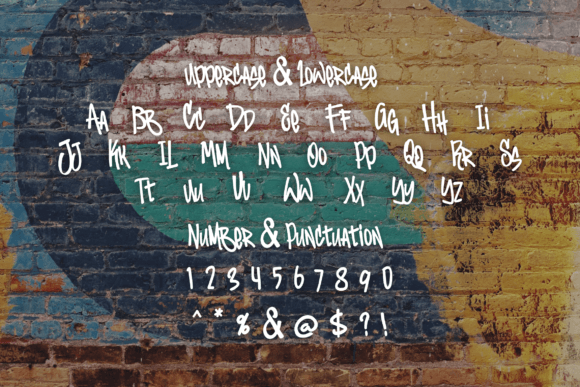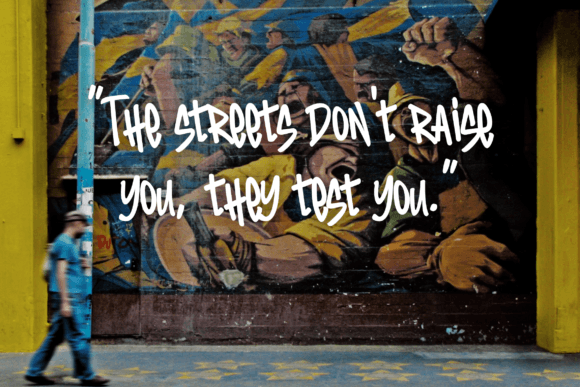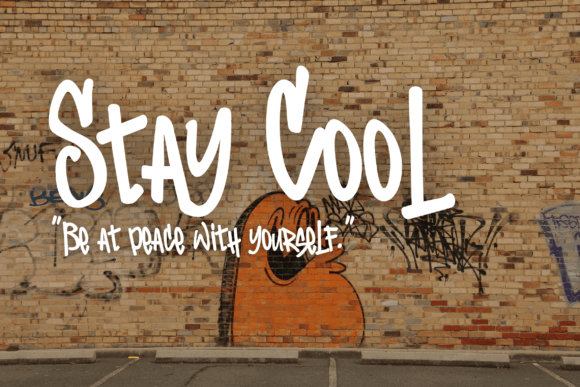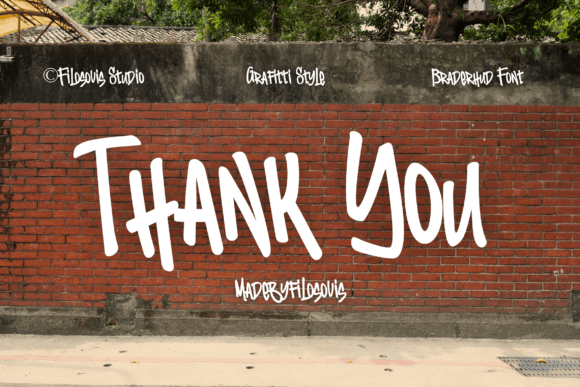
Unleash Your Creativity with Braderhud Font: The Ultimate Graffiti-Style Font
Are you tired of using the same old fonts for your designs? Look no further! Braderhud Font is here to revolutionize your creative projects with its playful, graffiti-style charm. This whimsical font is perfect for designers and crafters who want to add a touch of personality to their work. In this article, we’ll dive into the world of Braderhud Font and explore its unique features, uses, and benefits.
The Birth of Braderhud Font
Braderhud Font is a carefully crafted typeface that embodies the spirit of graffiti art. Its creator aimed to design a font that would bring a sense of playfulness and joy to designs, and we must say, they’ve succeeded. With its unique letterforms and quirky charm, Braderhud Font is sure to make your designs stand out from the crowd.
Key Features of Braderhud Font
So, what makes Braderhud Font so special? Here are some of its key features:
- Graffiti-style design: Braderhud Font boasts a bold, graffiti-inspired design that’s perfect for creating eye-catching headlines and titles.
- Whimsical letterforms: Each letter in Braderhud Font has its own unique personality, making it perfect for adding a touch of whimsy to your designs.
- Playful vibe: This font exudes a sense of playfulness and fun, making it ideal for designs that require a youthful and energetic feel.
- Unique charm: Braderhud Font has a certain charm that’s hard to find in other fonts. Its quirky design elements make it perfect for designers who want to add a personal touch to their work.
Uses of Braderhud Font
Braderhud Font is a versatile typeface that can be used in a variety of design projects. Here are some ideas to get you started:
- Eye-catching headlines: Use Braderhud Font to create bold, attention-grabbing headlines that will make your designs stand out.
- Vibrant posters: Add a playful touch to your posters with Braderhud Font. Its graffiti-style design is perfect for creating eye-catching posters that will grab people’s attention.
- Playful branding projects: Infuse your brand with personality using Braderhud Font. This font is perfect for creating playful, youthful branding that will appeal to a younger audience.
- Social media graphics: Use Braderhud Font to create engaging social media graphics that will make your followers smile.
Benefits of Using Braderhud Font
So, why should you choose Braderhud Font for your design projects? Here are some benefits to consider:
- Adds personality to designs: Braderhud Font is a great way to add a personal touch to your designs. Its unique charm and playful vibe make it perfect for designers who want to create distinctive work.
- Increases engagement: The playful, eye-catching design of Braderhud Font is sure to grab people’s attention and increase engagement.
- Versatile: Braderhud Font can be used in a variety of design projects, from posters and headlines to social media graphics and branding projects.
Tips for Using Braderhud Font
Here are some tips for getting the most out of Braderhud Font:
- Use it sparingly: While Braderhud Font is playful and eye-catching, it can be overwhelming if used excessively. Use it sparingly to create a focal point in your design.
- Pair it with other fonts: Braderhud Font pairs well with other fonts, especially serif fonts. Experiment with different font combinations to find the perfect match.
- Experiment with colors: Braderhud Font looks great in bold, bright colors. Experiment with different colors to find the perfect match for your design.
| Font Name | Braderhud Font |
| Author | filosovis.co |
In conclusion, Braderhud Font is a unique and playful graffiti-style font that’s perfect for designers and crafters who want to add a touch of personality to their work. With its whimsical letterforms, unique charm, and playful vibe, Braderhud Font is sure to make your designs stand out from the crowd. Whether you’re creating eye-catching headlines, vibrant posters, or playful branding projects, Braderhud Font is the perfect choice. So why wait? Download Braderhud Font today and unleash your creativity!